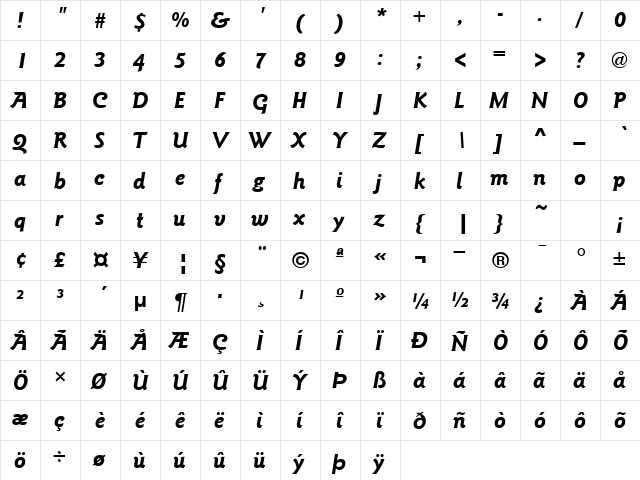
GoudySans BoldItalic Font Preview
Design Context for GoudySans Typeface
GoudySans takes a measured approach to typography — its balanced proportions and neutral character make it a reliable workhorse for both digital and print work. Its italic angle brings a sense of urgency and motion to the letterforms. The heavy weight commands attention and anchors typographic hierarchies.
Pro Tip: Try GoudySans for annotation and caption copy alongside an upright companion — the contrast in angle creates a dynamic but ordered typographic system.